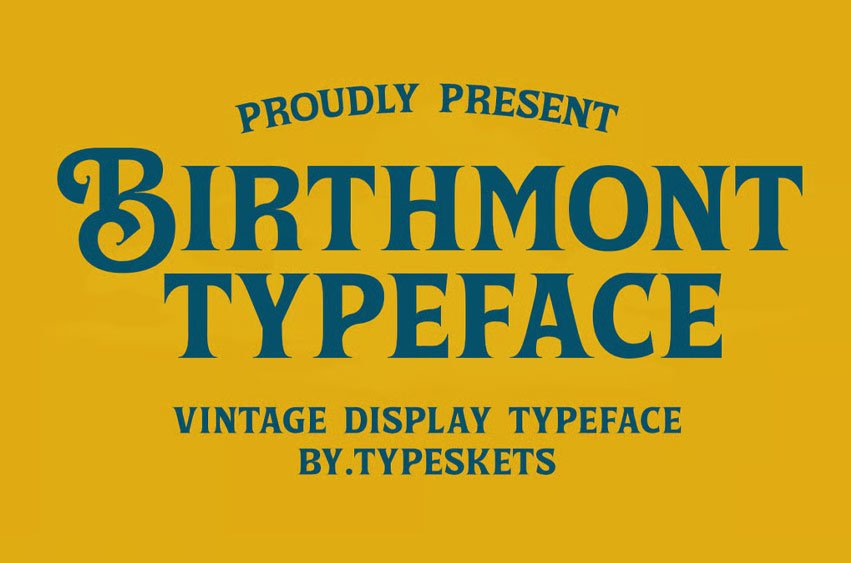
Birthmont Font Typeface is a bold vintage display font inspired by classic signage, retro posters, and traditional typography. It features strong letterforms with elegant curves, making it perfect for headlines, branding, packaging, posters, and editorial design.
Designed to stand out while maintaining a timeless aesthetic, Birthmont brings a nostalgic yet confident feel to your creative projects. Its decorative details and solid structure make it ideal for both digital and print use.
Whether you’re creating a vintage logo, old-style branding, product labels, or eye-catching titles, Birthmont Typeface delivers a distinctive and memorable typographic voice.
- Allcaps with different Style